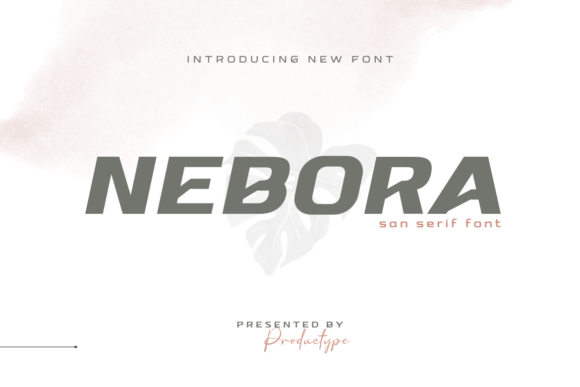
Nebora Font: Indulge in the Art of Culinary Expression
Embark on a gastronomic adventure with Nebora Font, the ultimate sans serif font for food enthusiasts and culinary creatives. Designed with precision and elegance, Nebora captures the essence of taste, aroma, and visual delight. Let your culinary creations come alive with the sophisticated charm of Nebora.
Unleash your imagination and craft mouthwatering menus, tantalizing recipes, and captivating food blogs that entice your audience's senses. Nebora's clean lines and balanced proportions add a touch of professionalism, while its subtle curves evoke a sense of warmth and authenticity. Elevate your culinary brand with Nebora, and watch your creations shine.
Dive into a world where typography meets gastronomy. Nebora's versatility extends beyond static text. Transform your social media posts into culinary masterpieces with eye-catching captions that dance across the screen like a delicate amuse-bouche. Engage your followers with visually stunning food photography accompanied by Nebora's elegant typography.
Let Nebora be your culinary muse, inspiring you to create captivating food-related content that captivates your audience and leaves them craving more. Whether you're a food blogger, chef, restaurant owner, or simply a passionate foodie, Nebora is the perfect font to elevate your culinary expression.